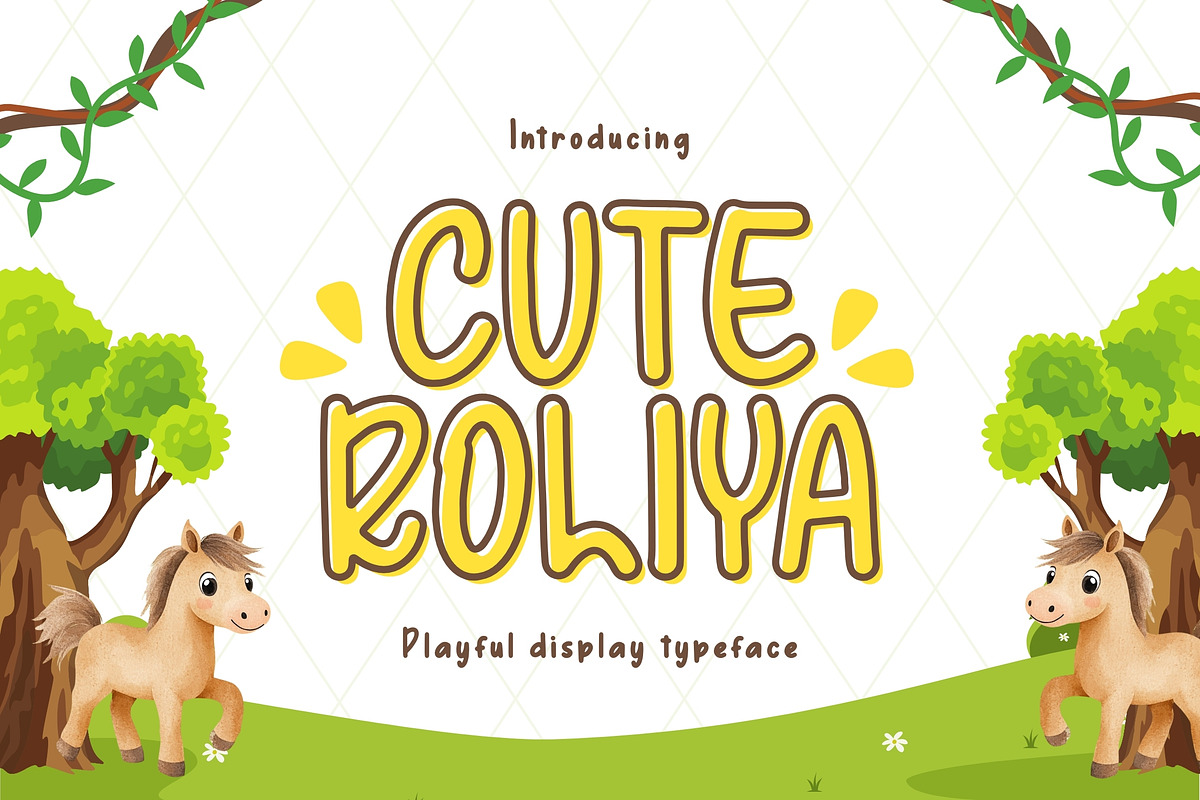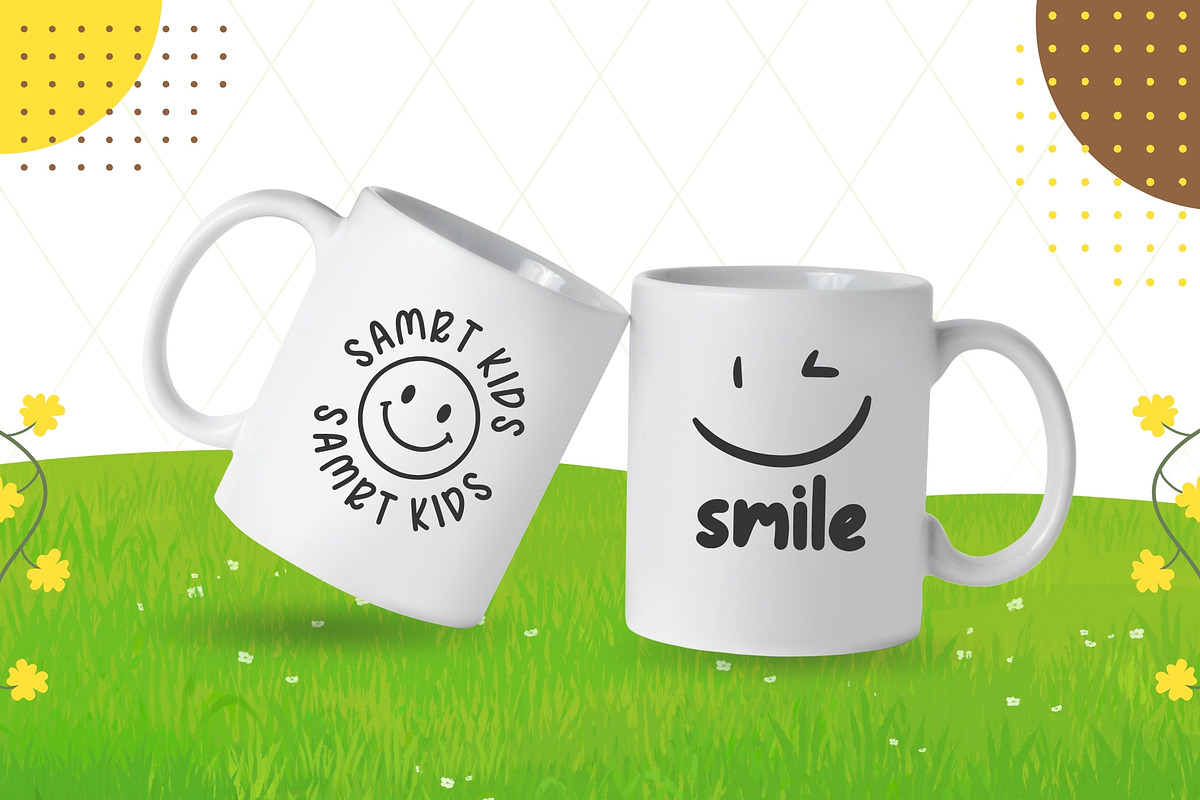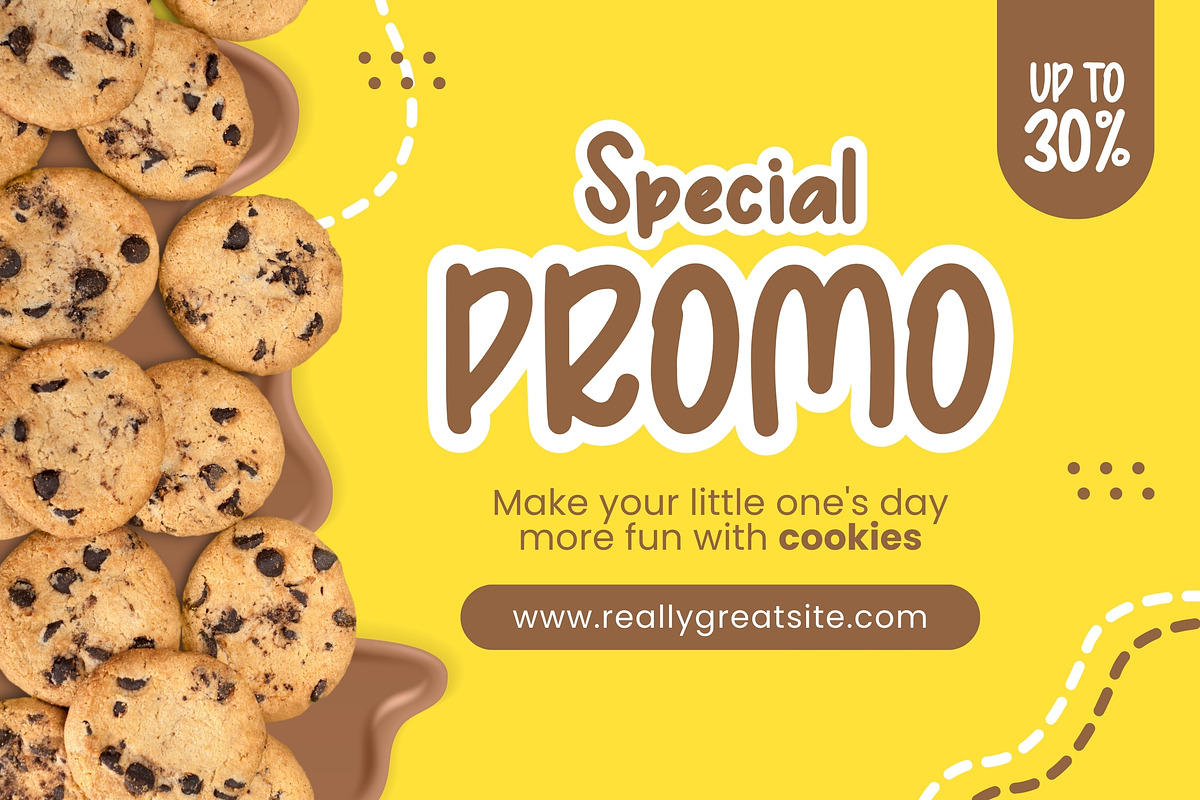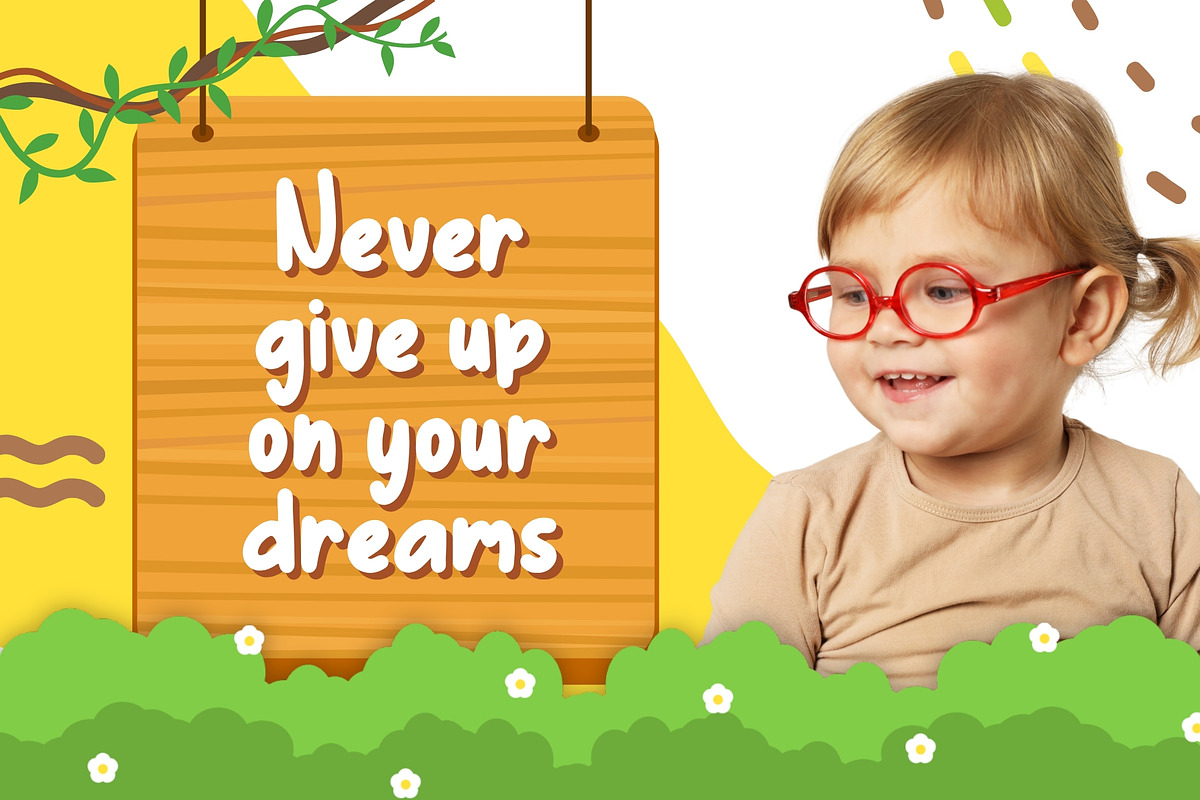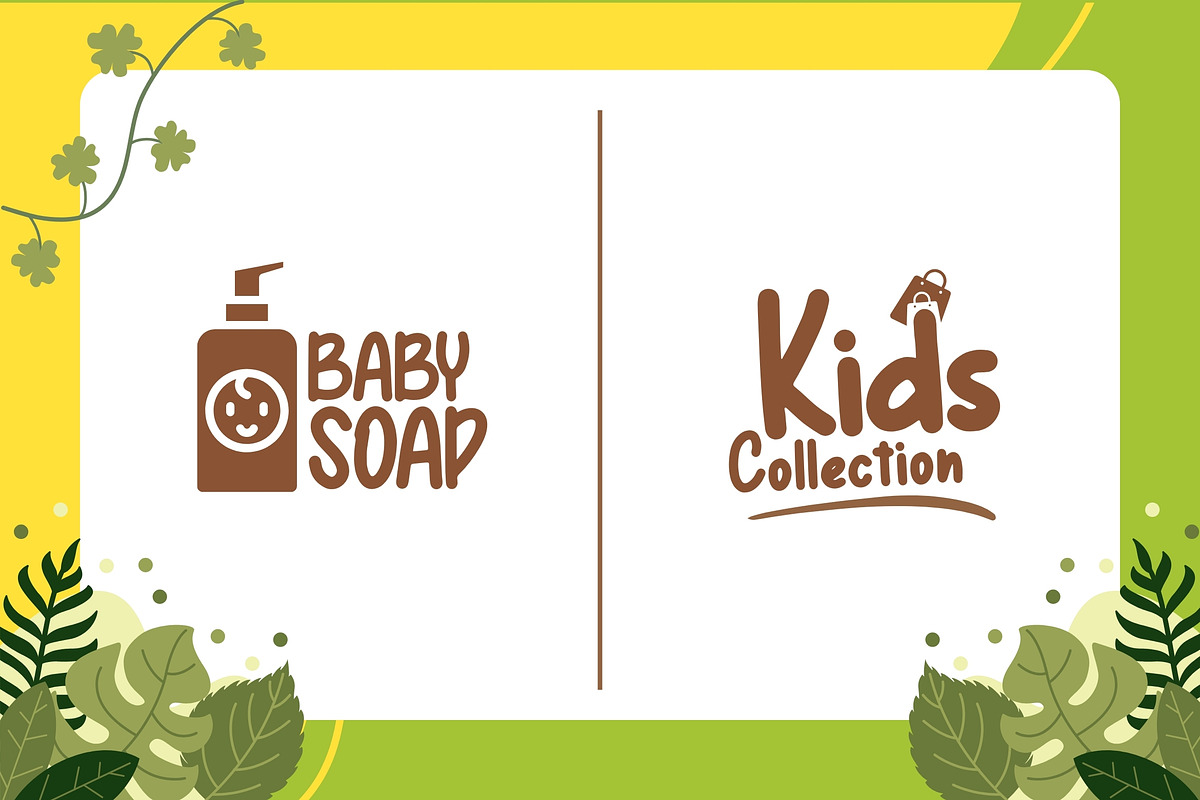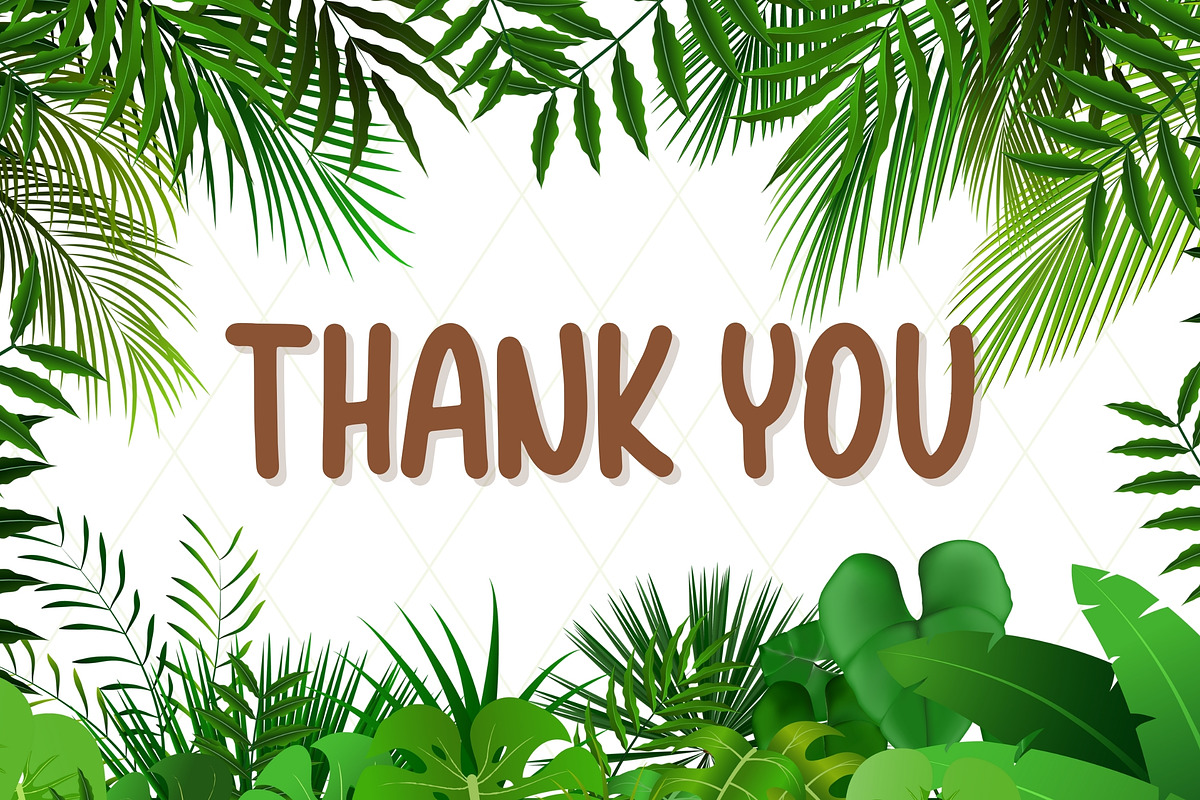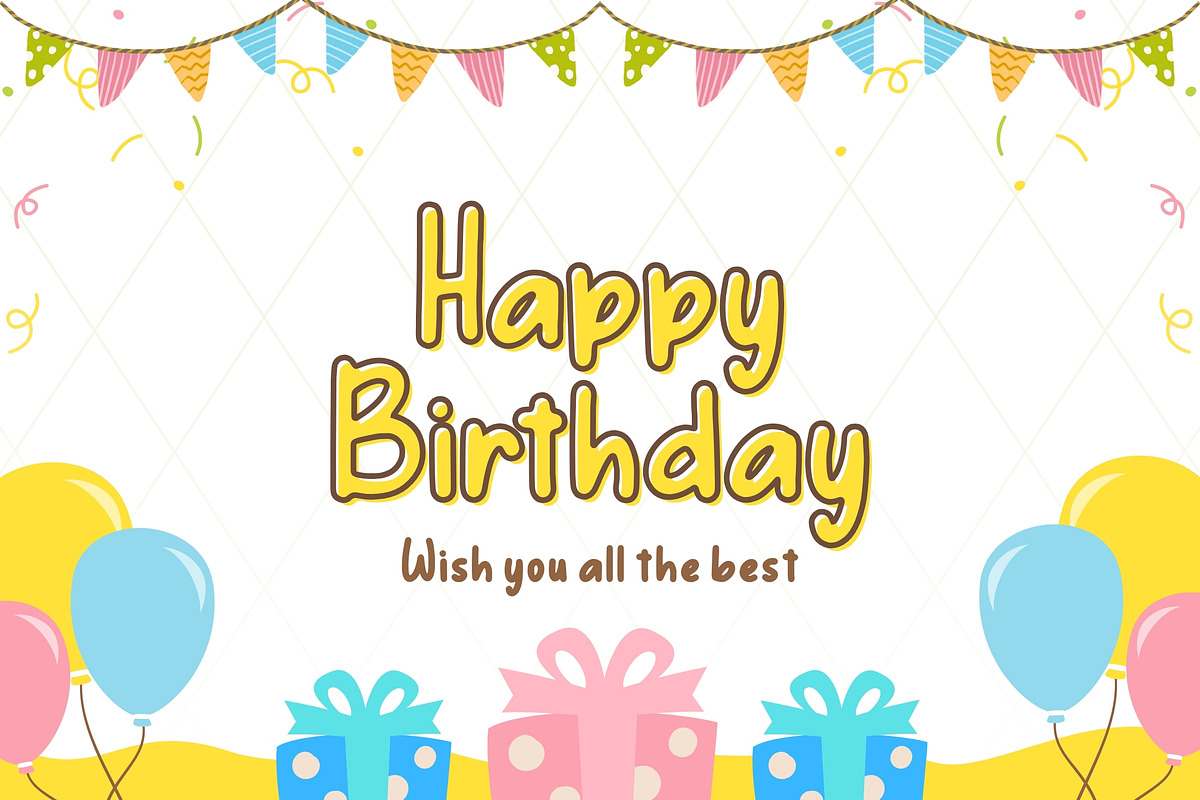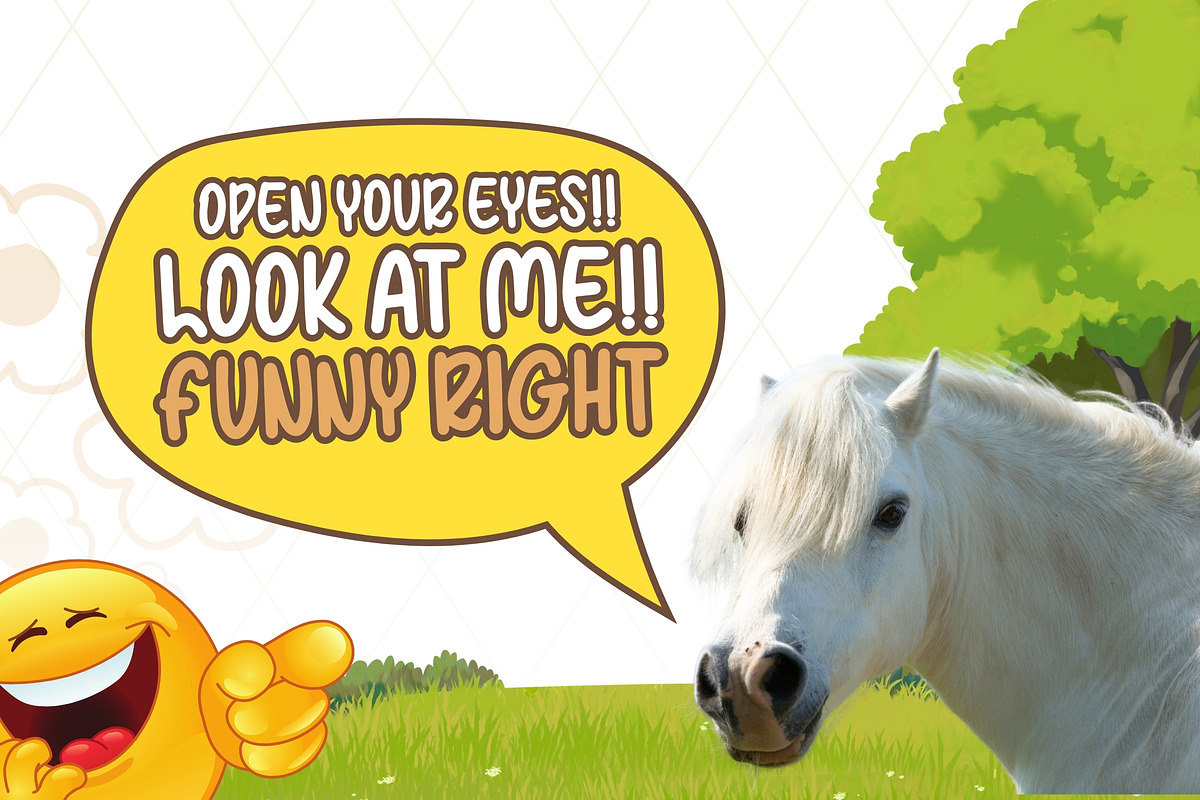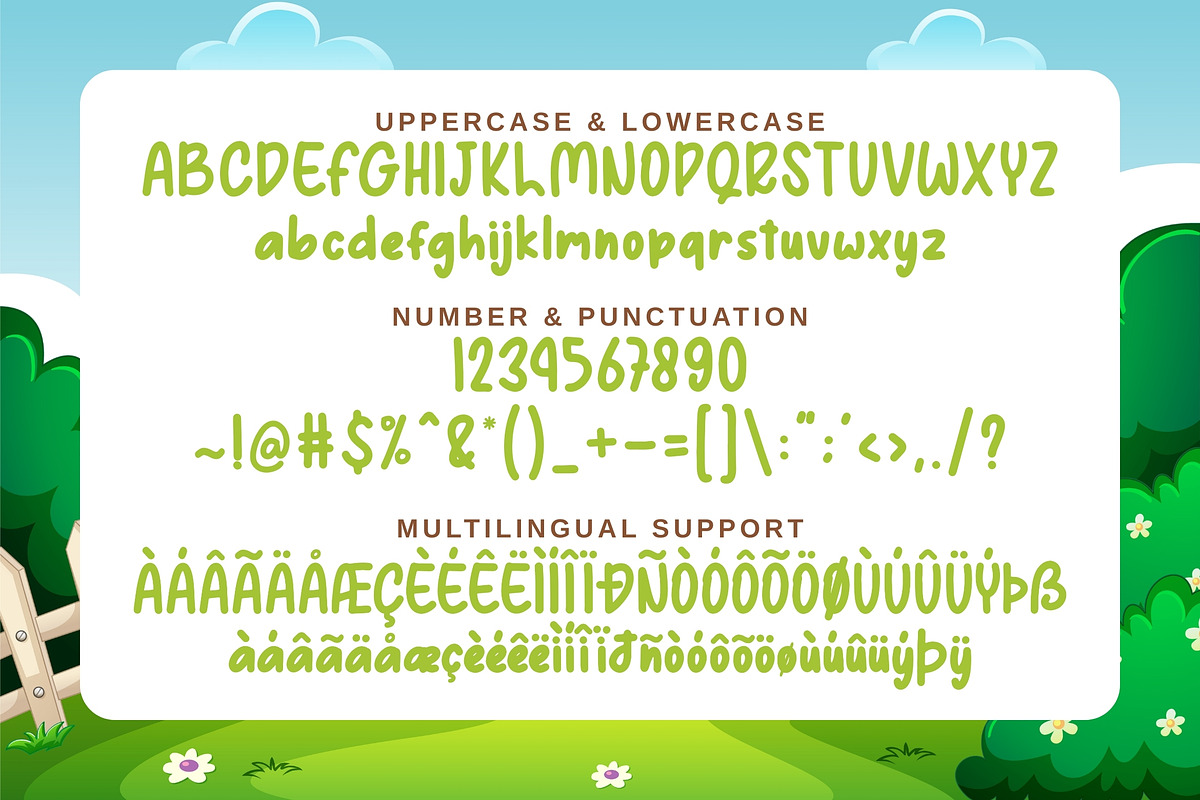
Cute Roliya – Fresh & Friendly Font
Cute Roliya is a fresh and friendly kids font inspired by a natural, cheerful, and playful atmosphere. With its rounded letterforms and organic shapes, this font creates a warm and welcoming look that feels close to nature and perfect for children-focused designs.
Cute Roliya brings a sense of joy, simplicity, and friendliness, making it ideal for projects that want to feel fun, positive, and approachable without being overly bold.
- Children’s books and learning materials
- Educational worksheets and school projects
- Kids branding with a natural or outdoor theme
- Posters, signs, and playful headlines
- Creative designs for kids, parents, and educators
- Rounded, playful, and natural style
- Multilingual character support
- Easy to read and kid-friendly
- Suitable for print and digital use
Why Choose Cute Roliya? Cute Roliya helps your designs feel happy, warm, and close to everyday childhood experiences. Its natural personality makes it perfect for educational content, children’s brands, and creative projects that want to communicate joy, care, and friendliness.